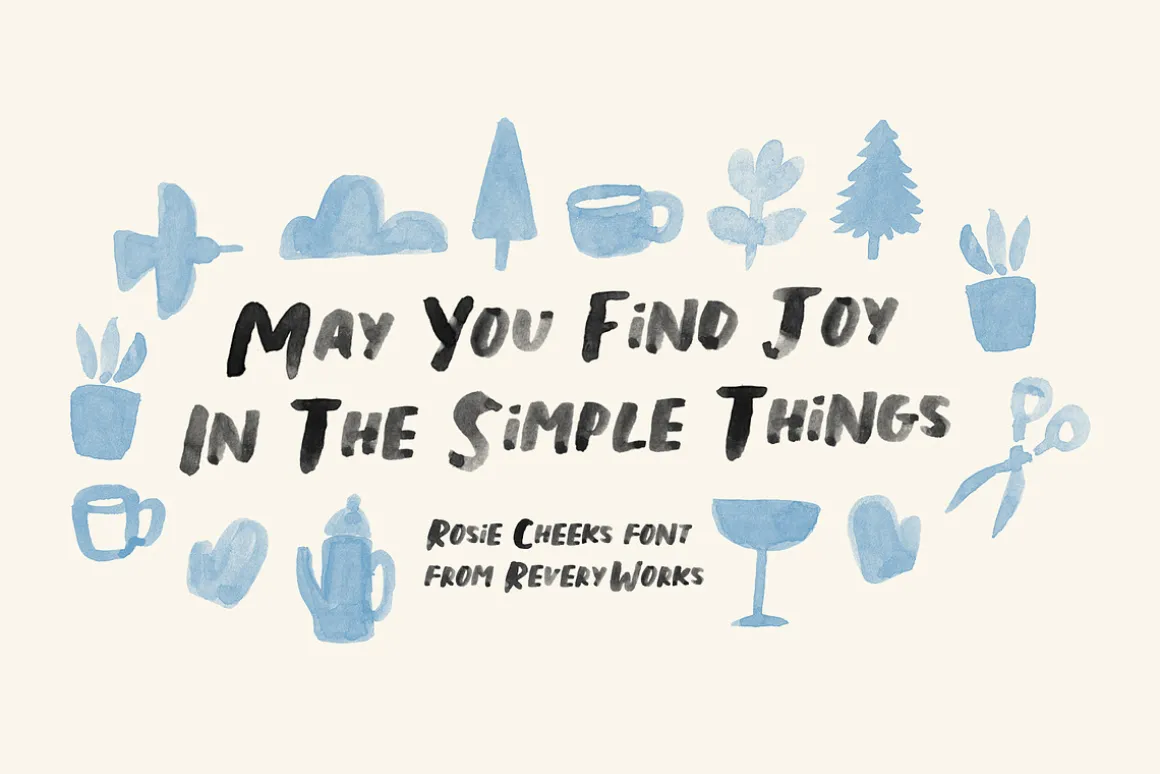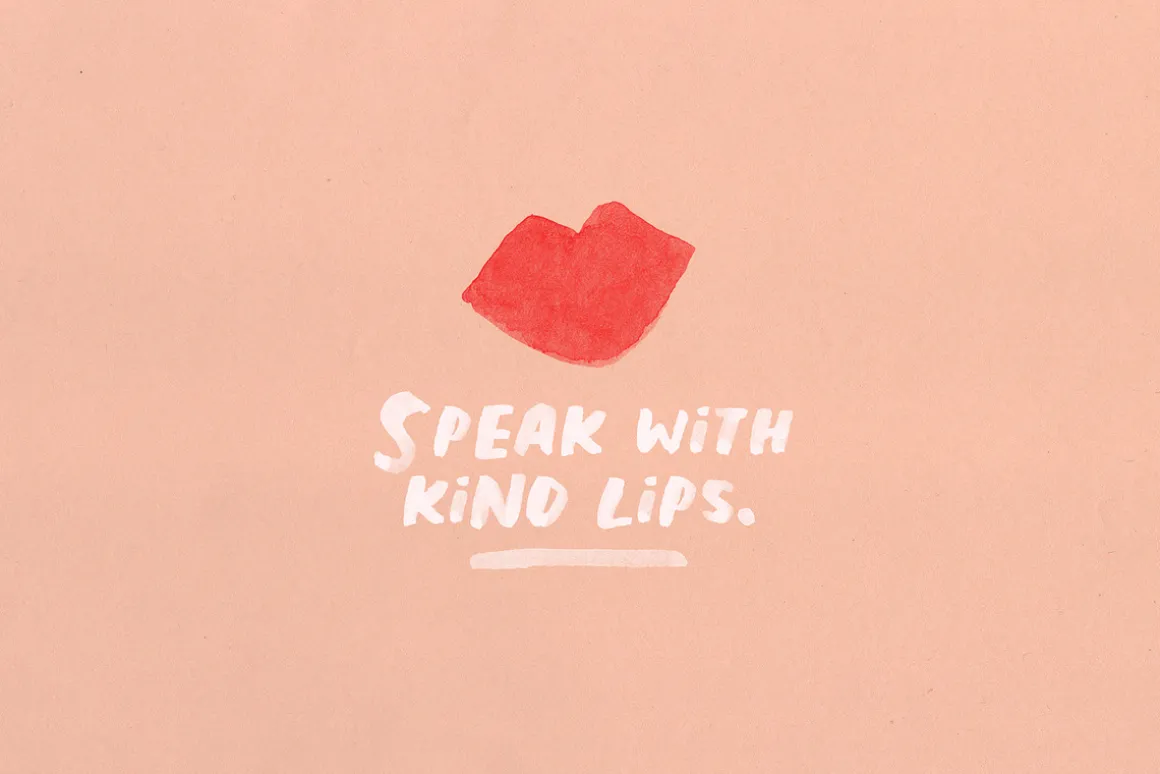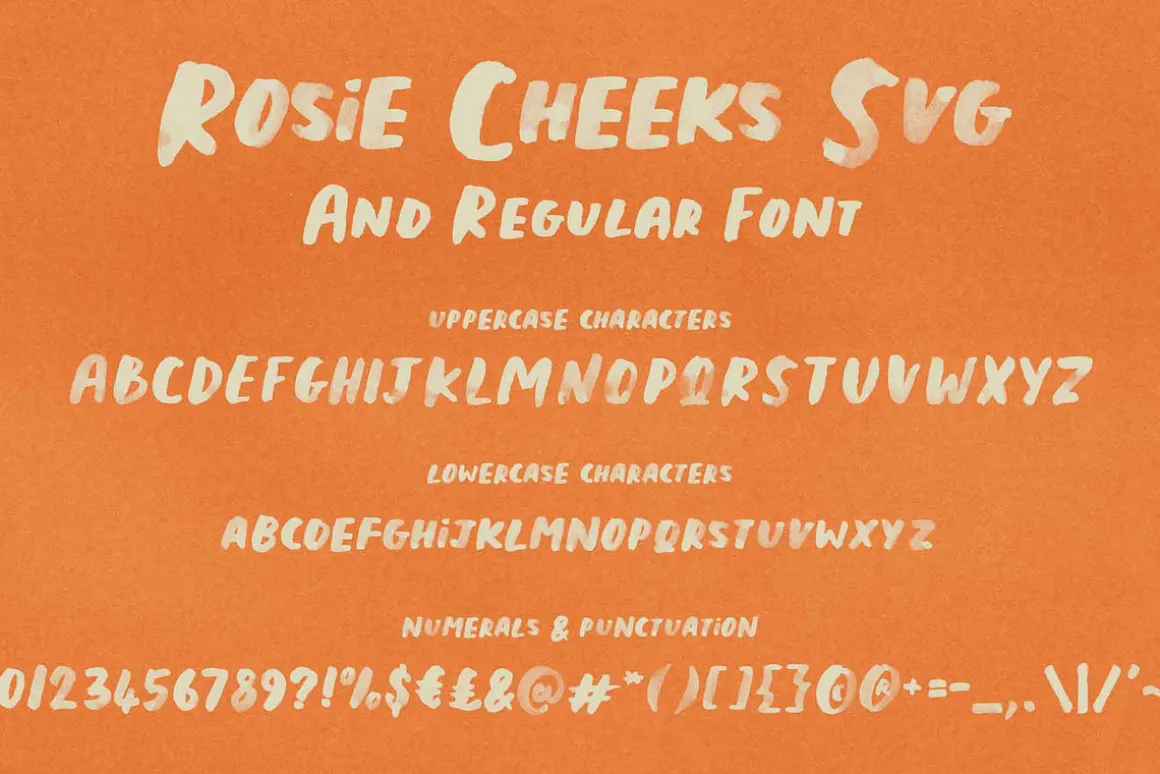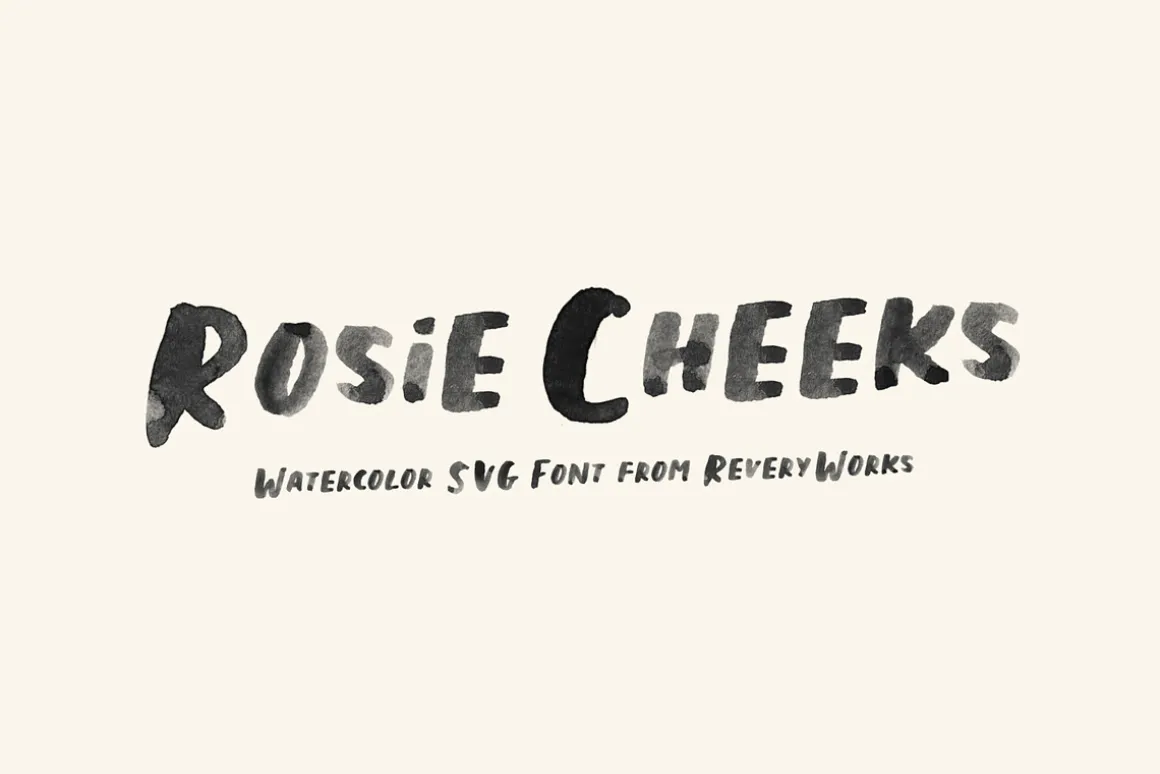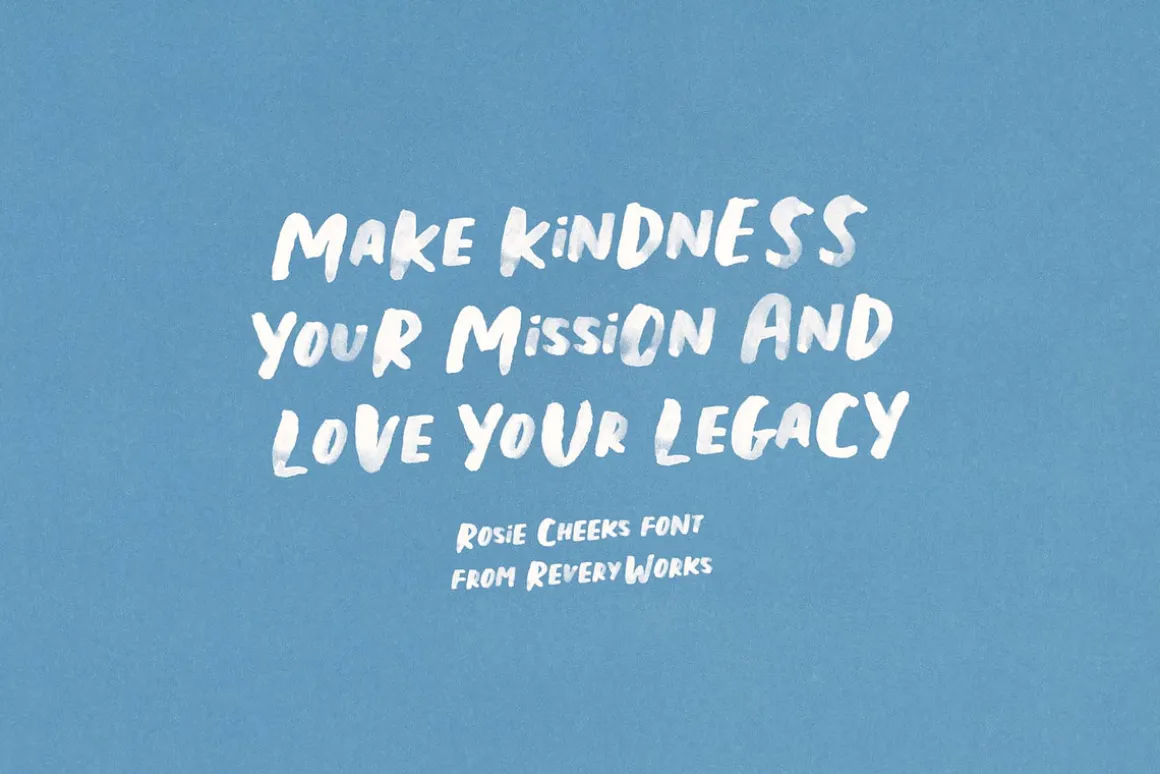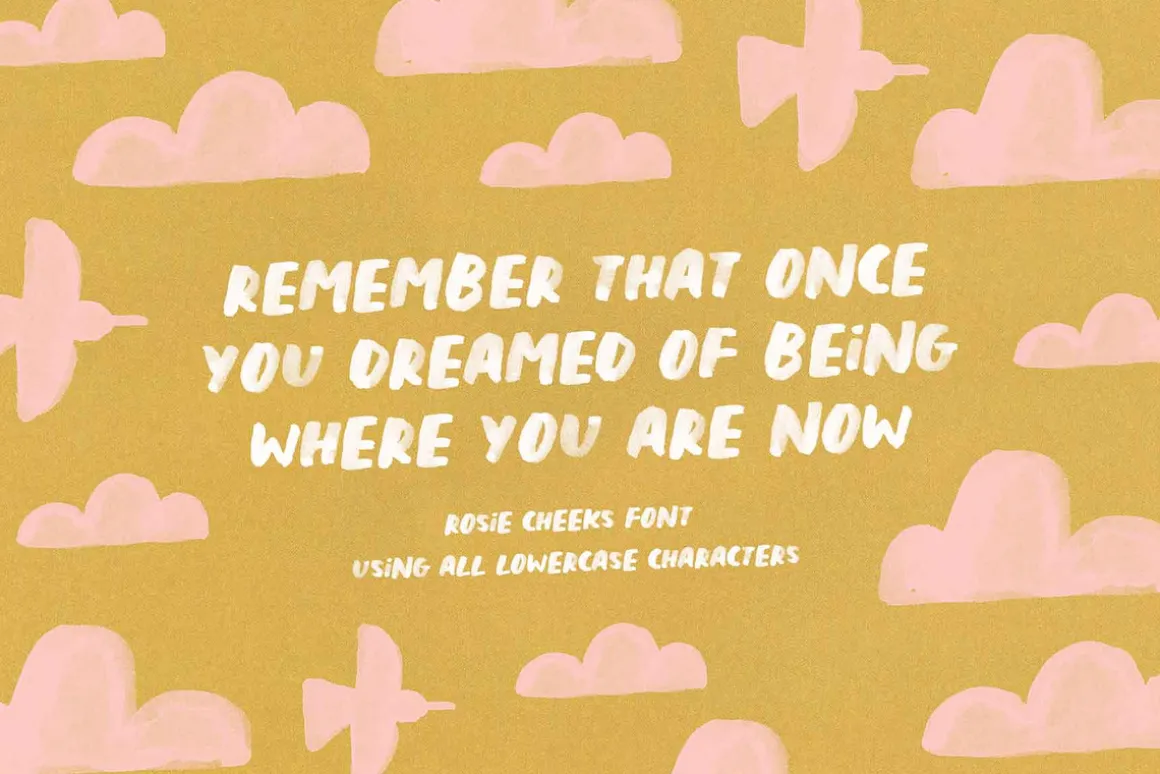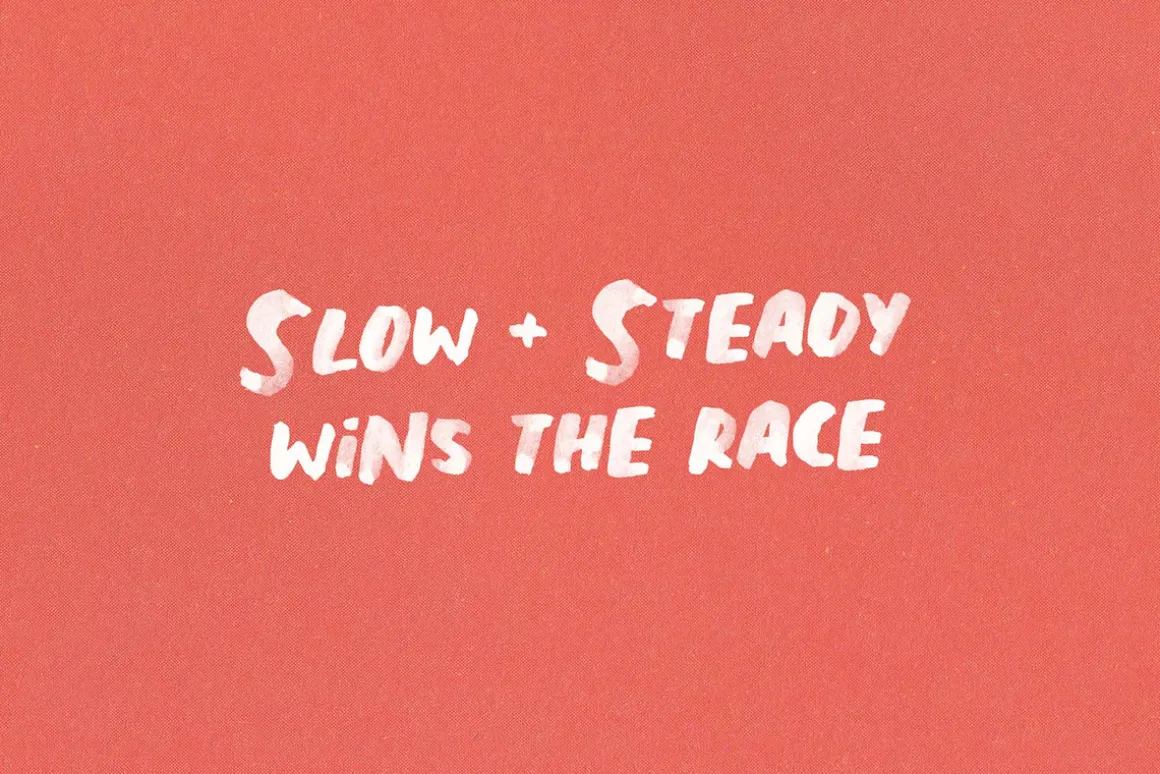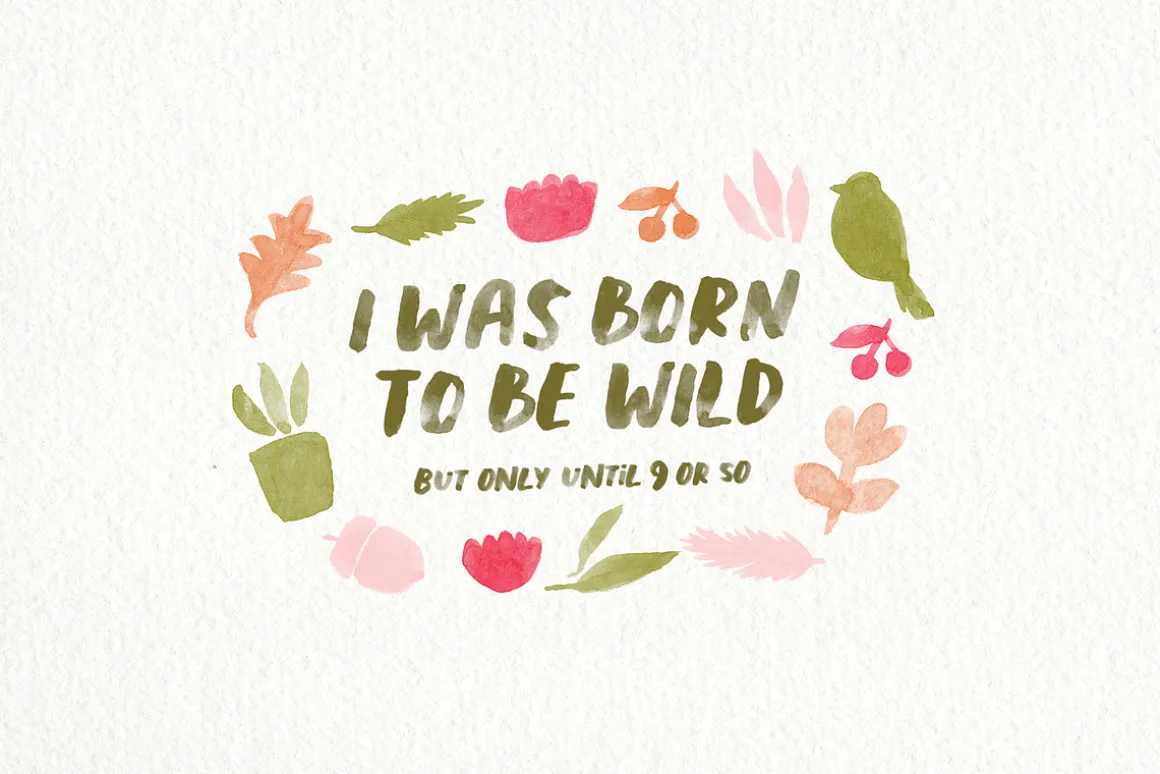
Introducing Rosie Cheeks – A versatile and minimal watercolor font!
Inspired by natural watercolor lettering. This font is minimal yet very versatile. Here are some pointers on how you can achieve different lettering effects!
1. It looks great in all caps or all lowercase, but my personal favorite is mixing the uppercase and lowercase characters together to get an interesting look.2. You can also layer the watercolor font for a more opaque look.3. Play around with the spacing of the letters to achieve different effects.